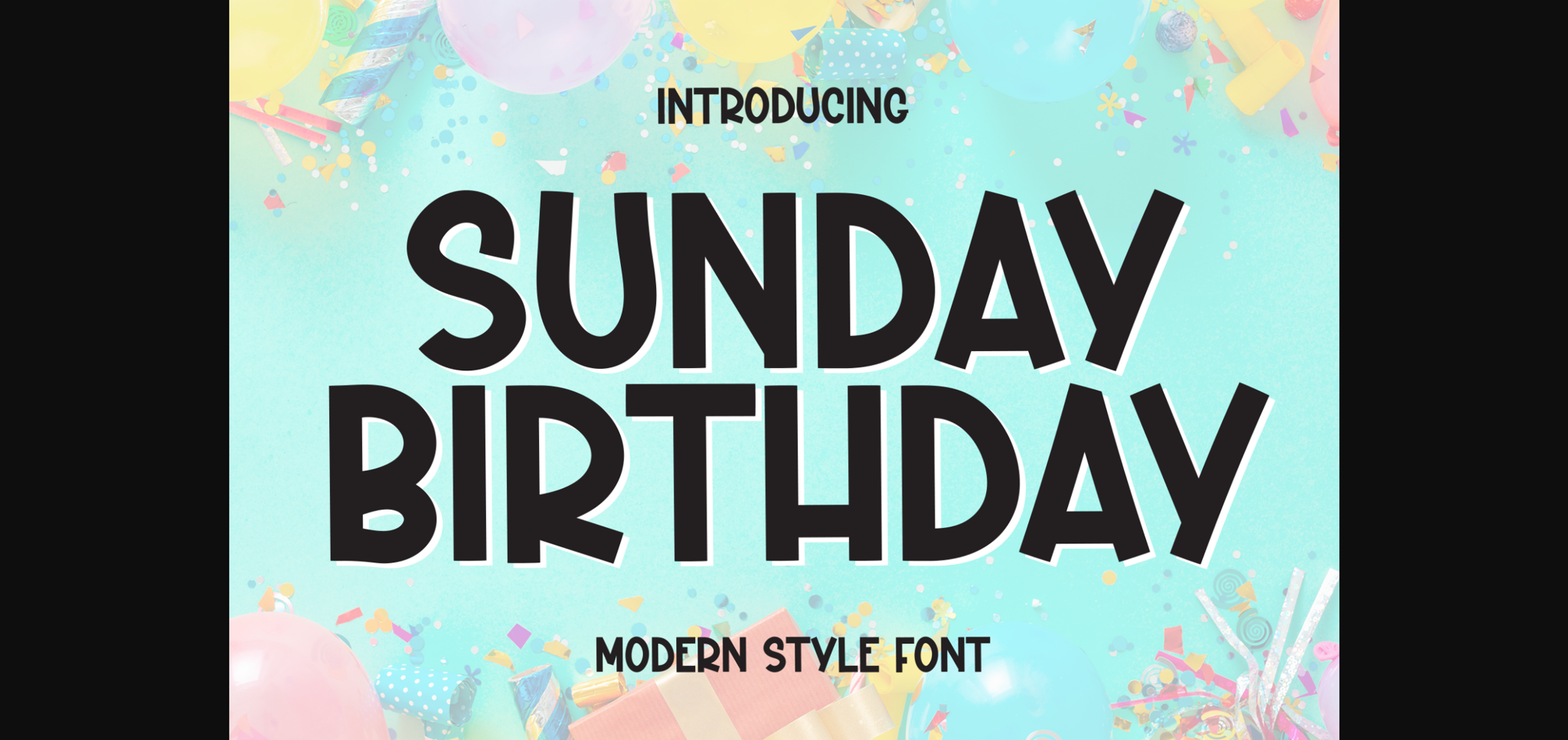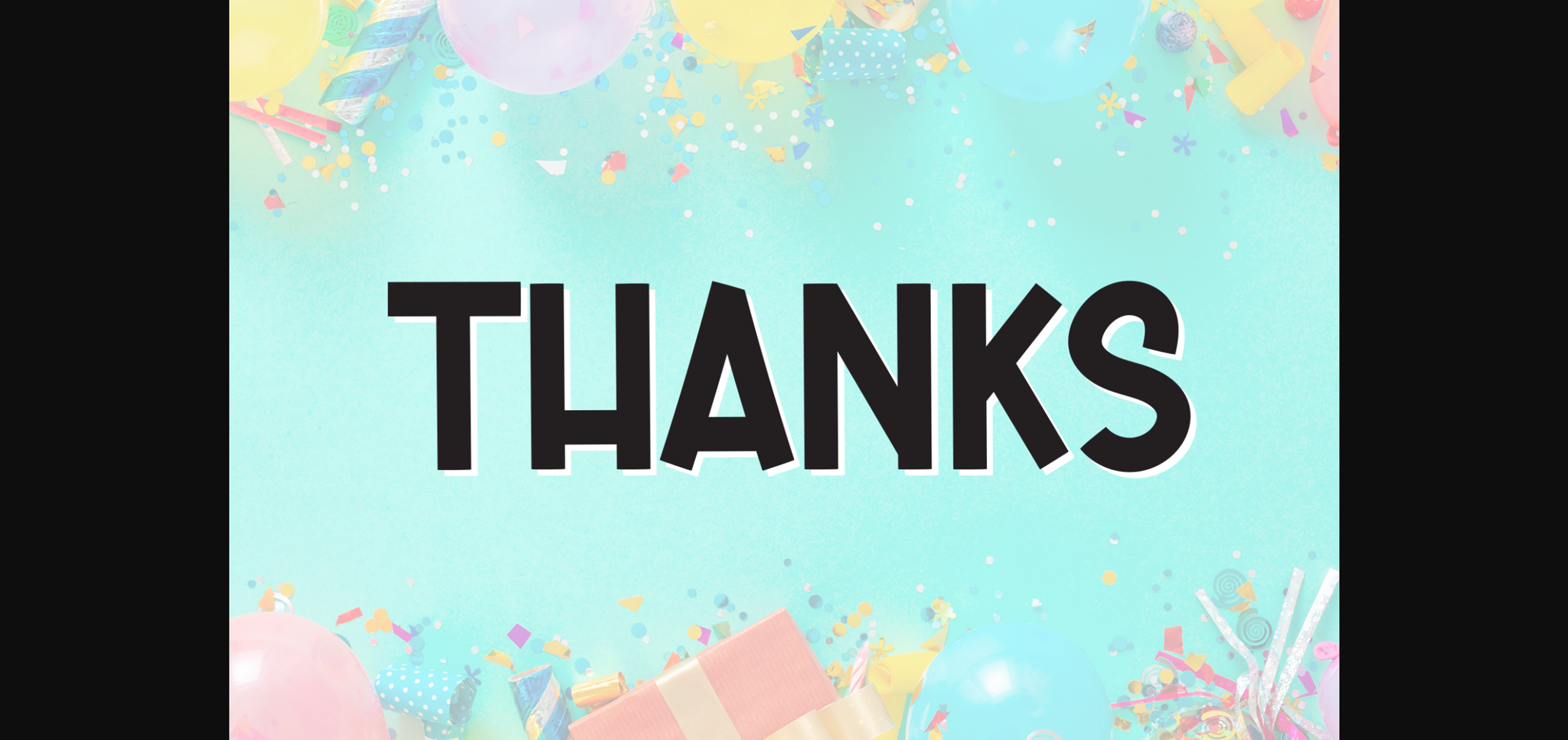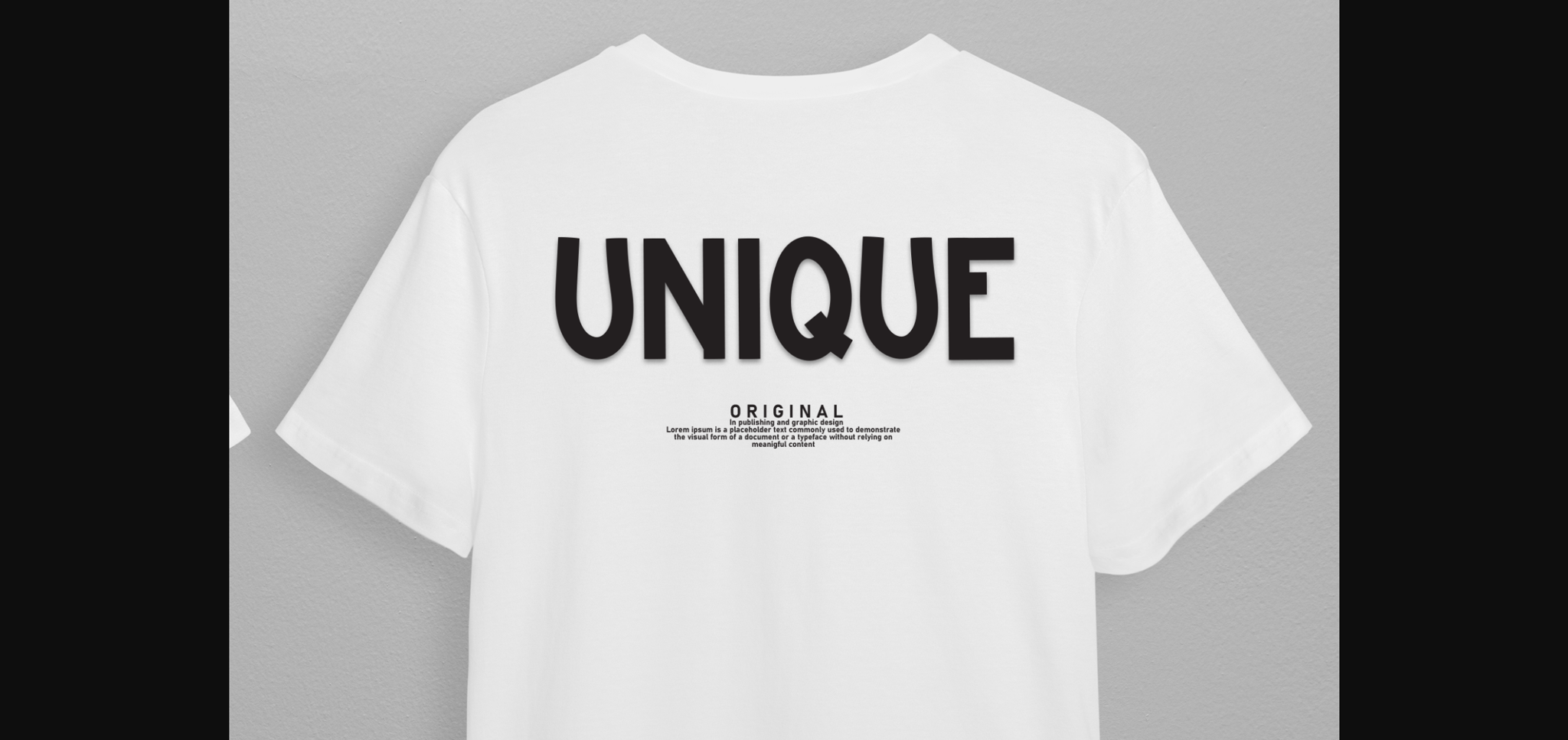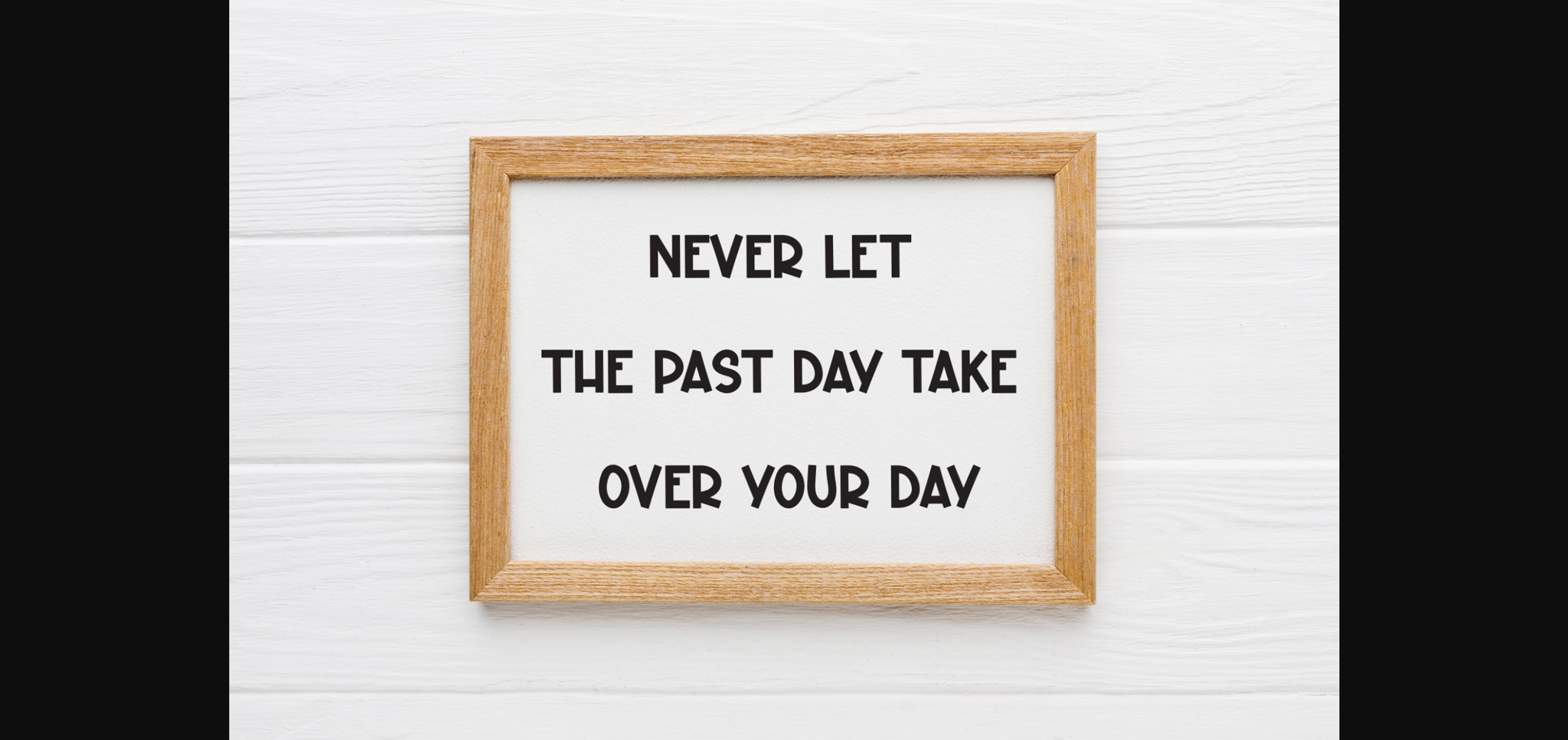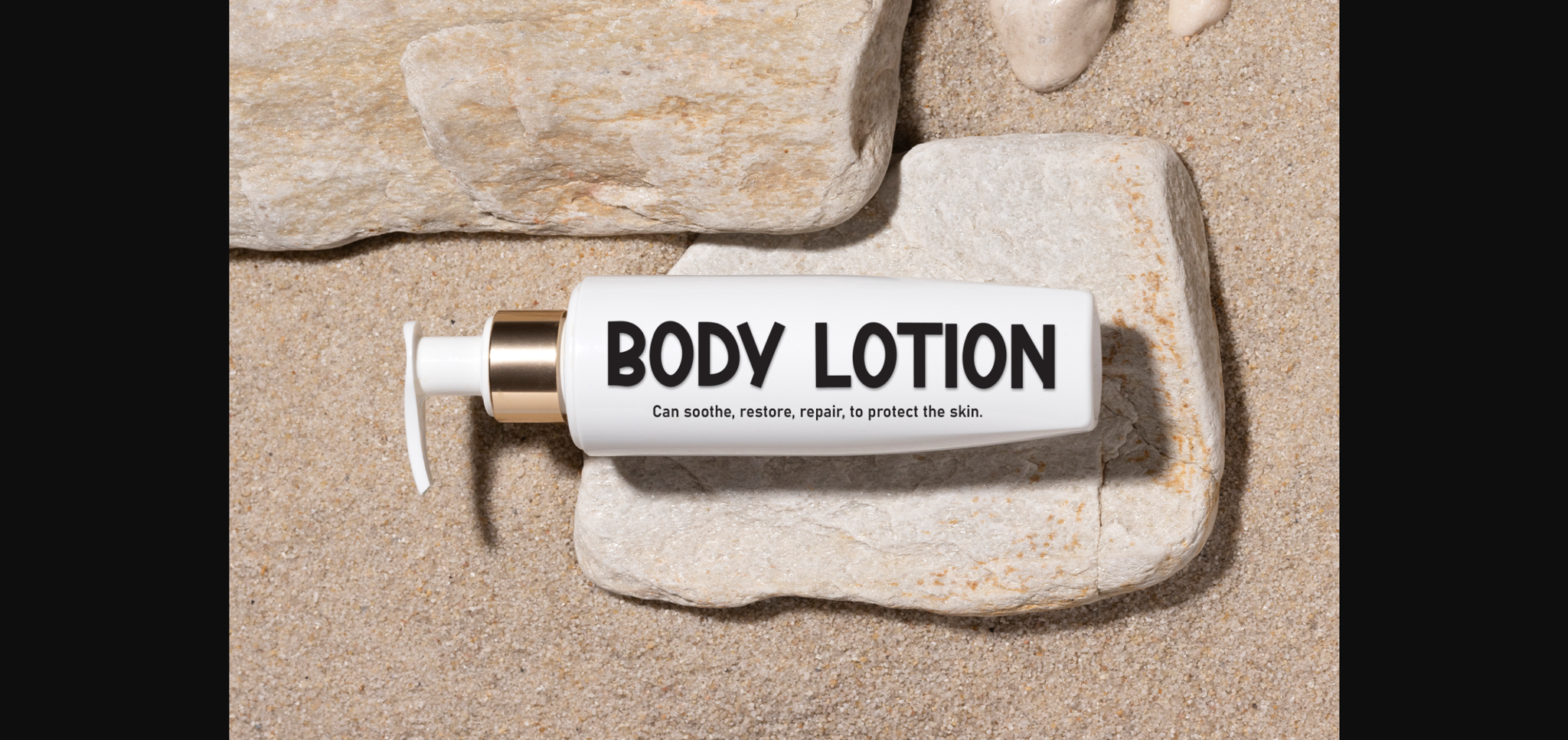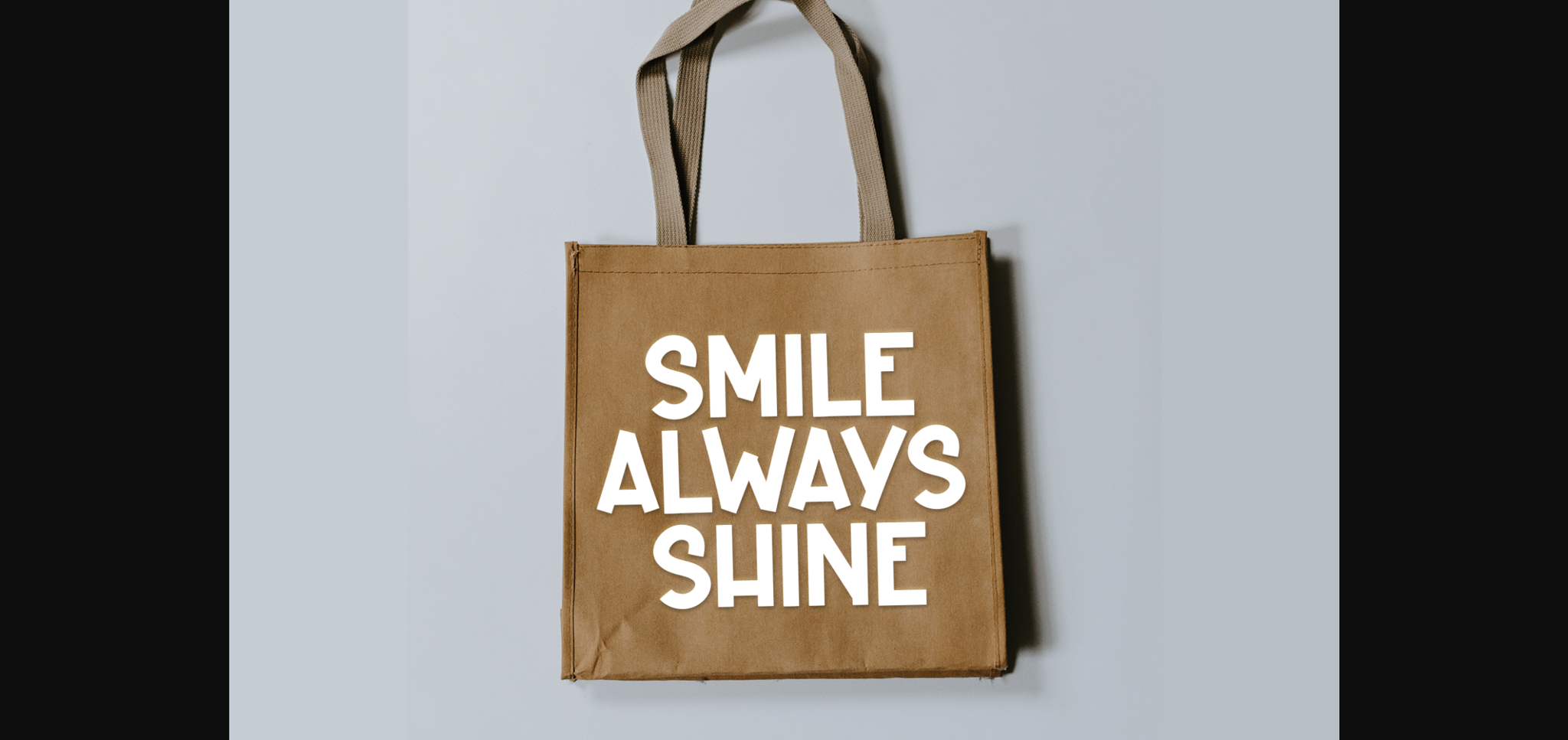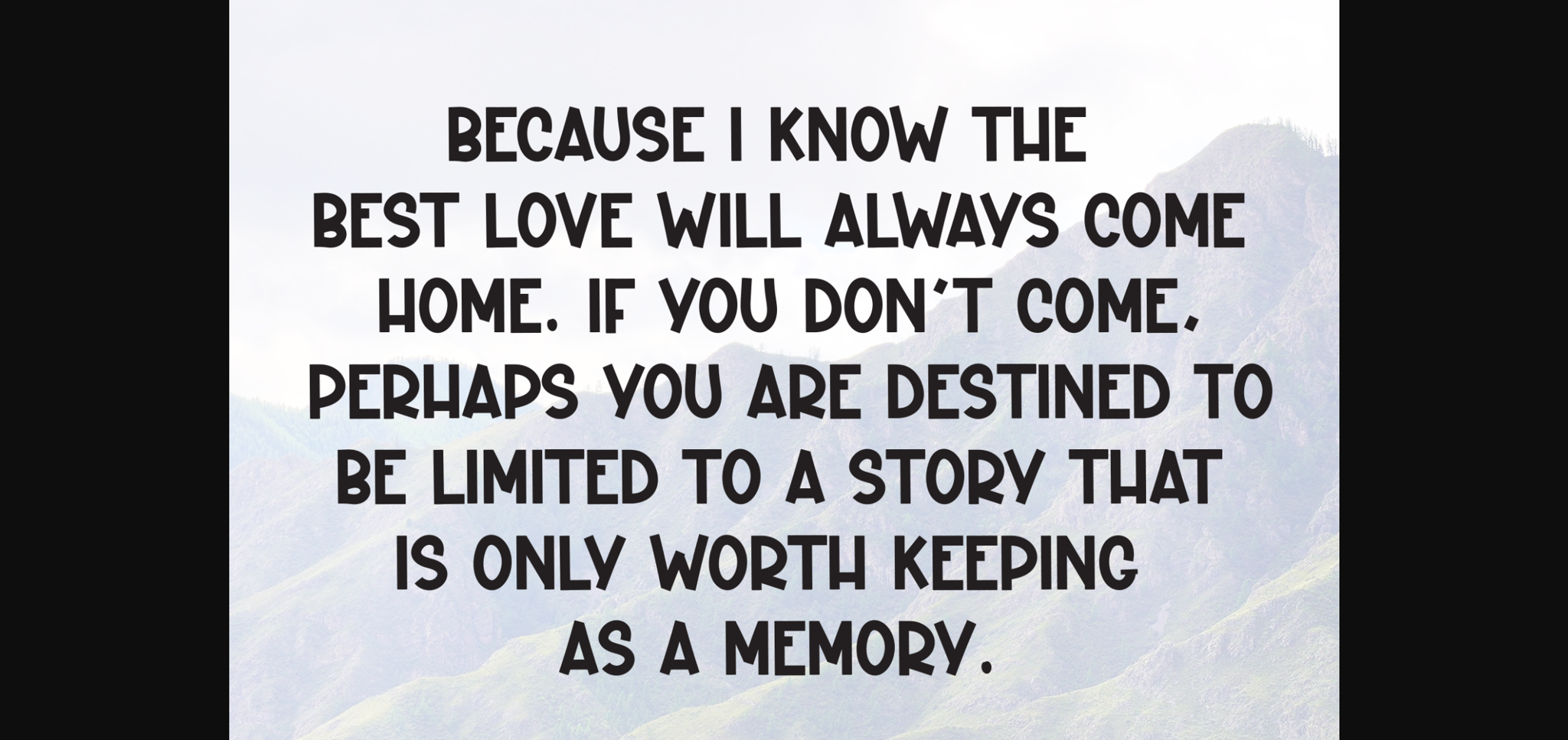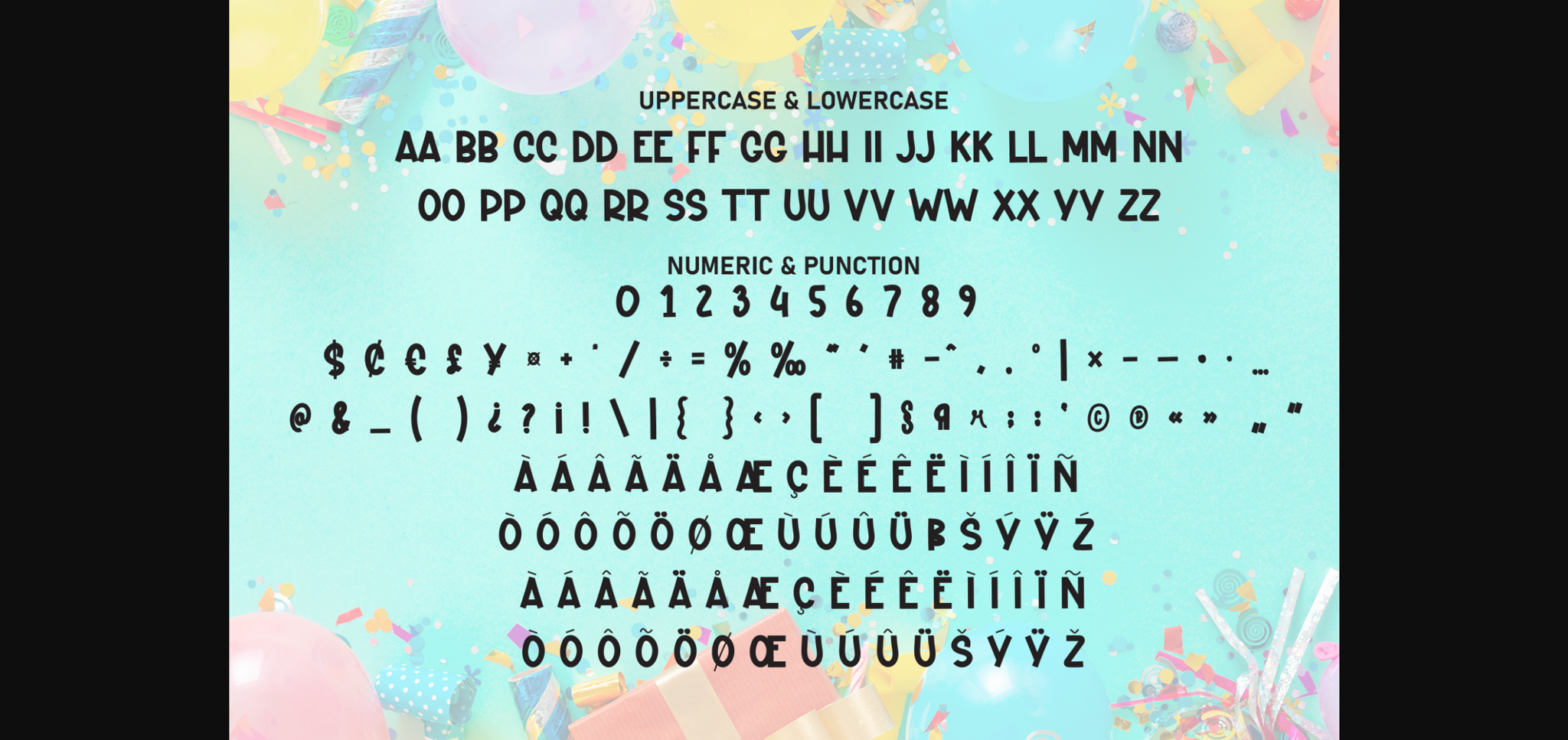
Sunday Birthday Font
About Sunday Birthday Font
Sunday Birthday is a casual sans-serif font that radiates warmth and friendliness. Its clean lines and balanced proportions make it easy to read, while subtle quirks in letter shapes add personality. Ideal for invitations, posters, and branding, Sunday Birthday brings a relaxed vibe to any design project.